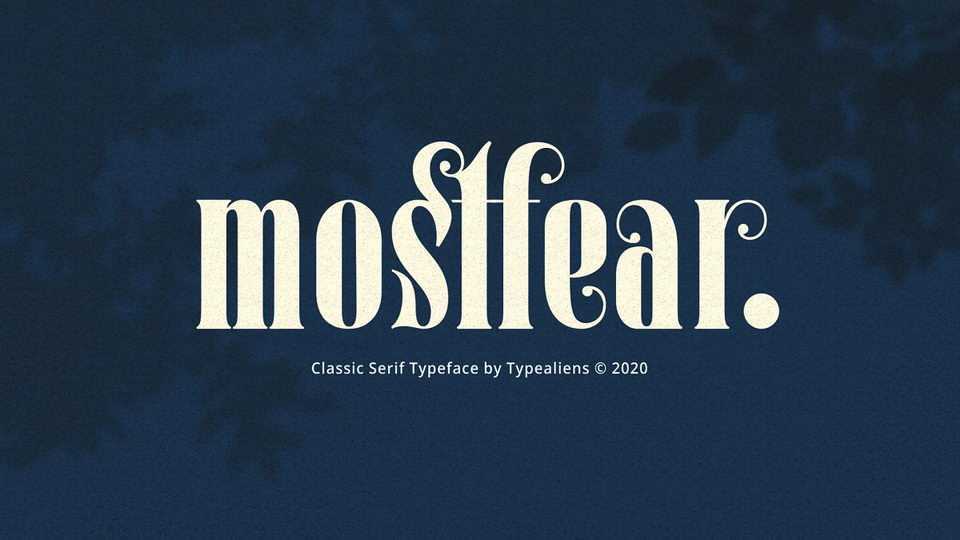
Download Mostfear font, a classic serif typeface that is able to support the modern era. Mostfear is suitable for magazine cover designs as headlines and sub-headlines, logo design, or some print designs.
Designer: Typealiens